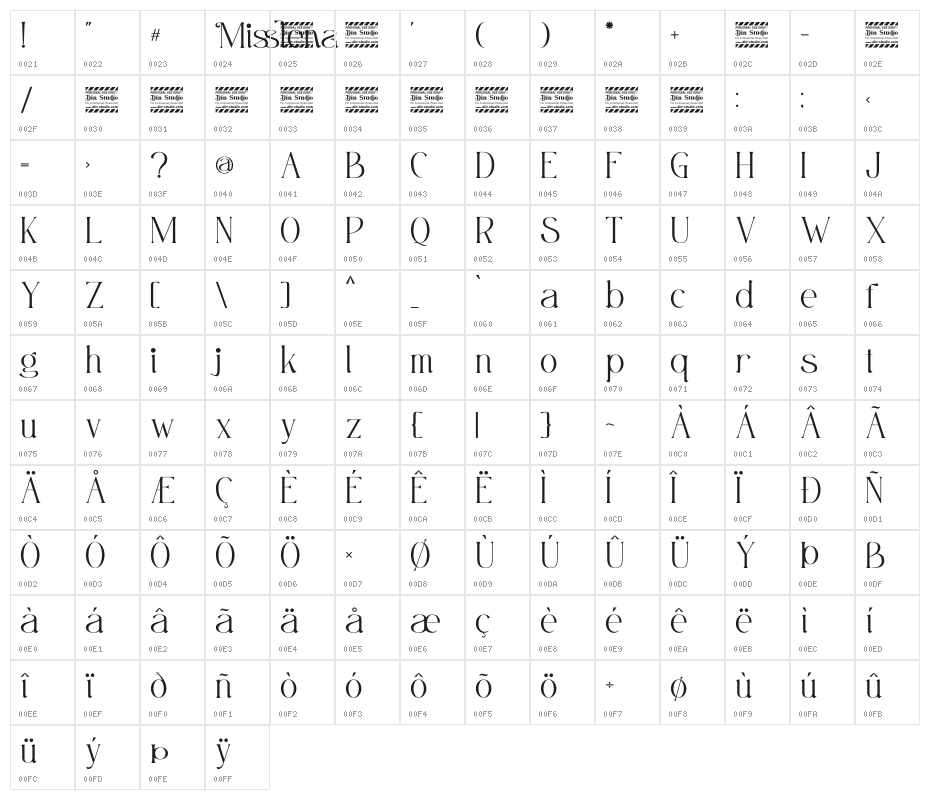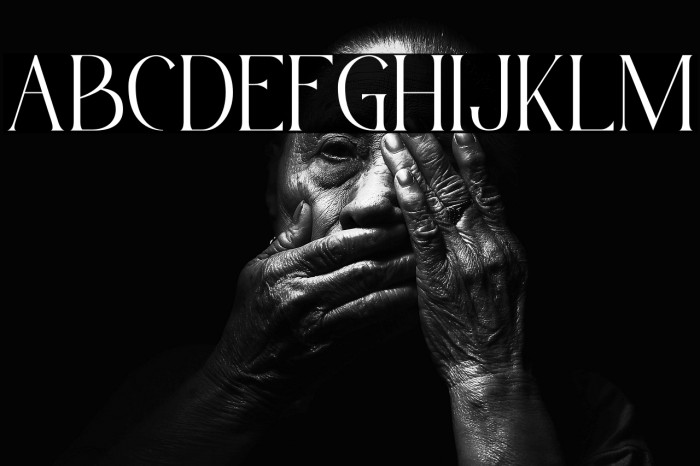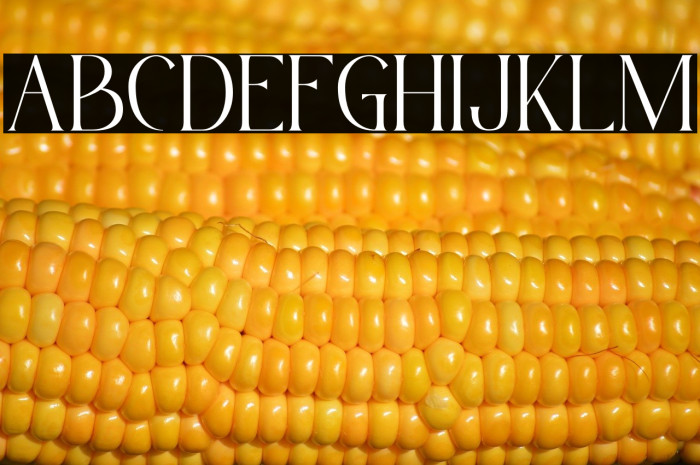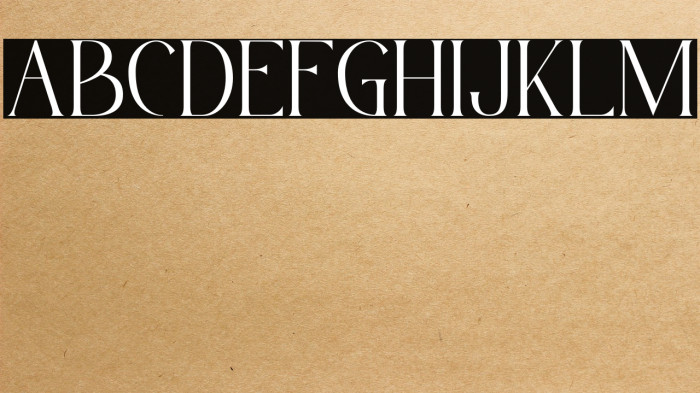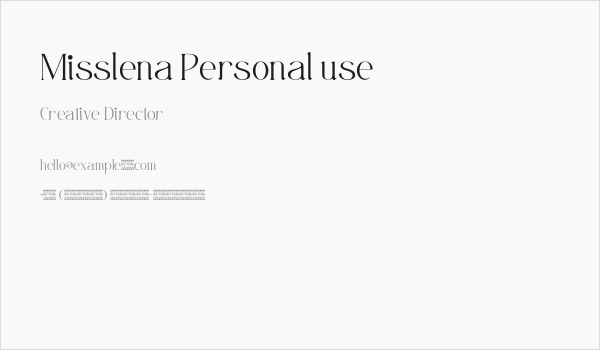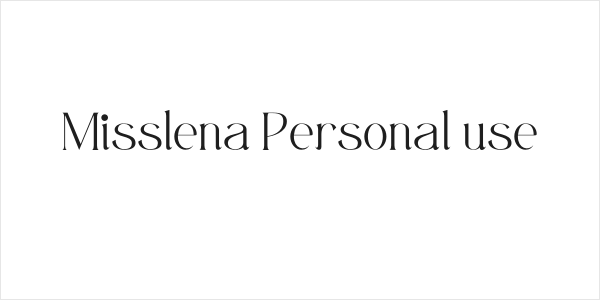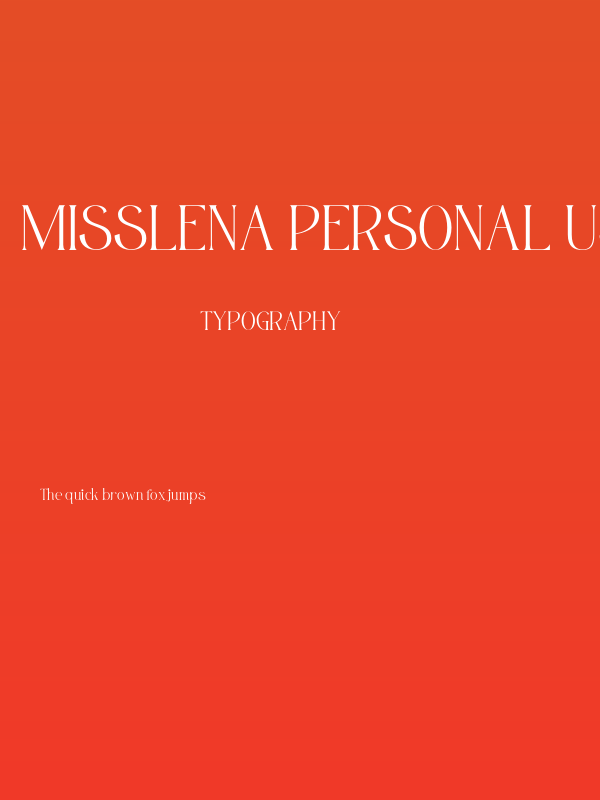
Misslena Personal use Font
Misslena Personal use Description
This font features a sophisticated and elegant design with a modern twist. The uppercase letters are tall and slender, with a slight flair at the ends, giving them a refined appearance. The lowercase letters maintain a consistent style, with smooth curves and a balanced structure. The font exhibits a high contrast between thick and thin strokes, enhancing its readability and visual appeal. The numerals are designed to match the overall aesthetic, with a clean and contemporary look. Special characters are included, maintaining the same elegant style. This font is versatile and suitable for various design projects.